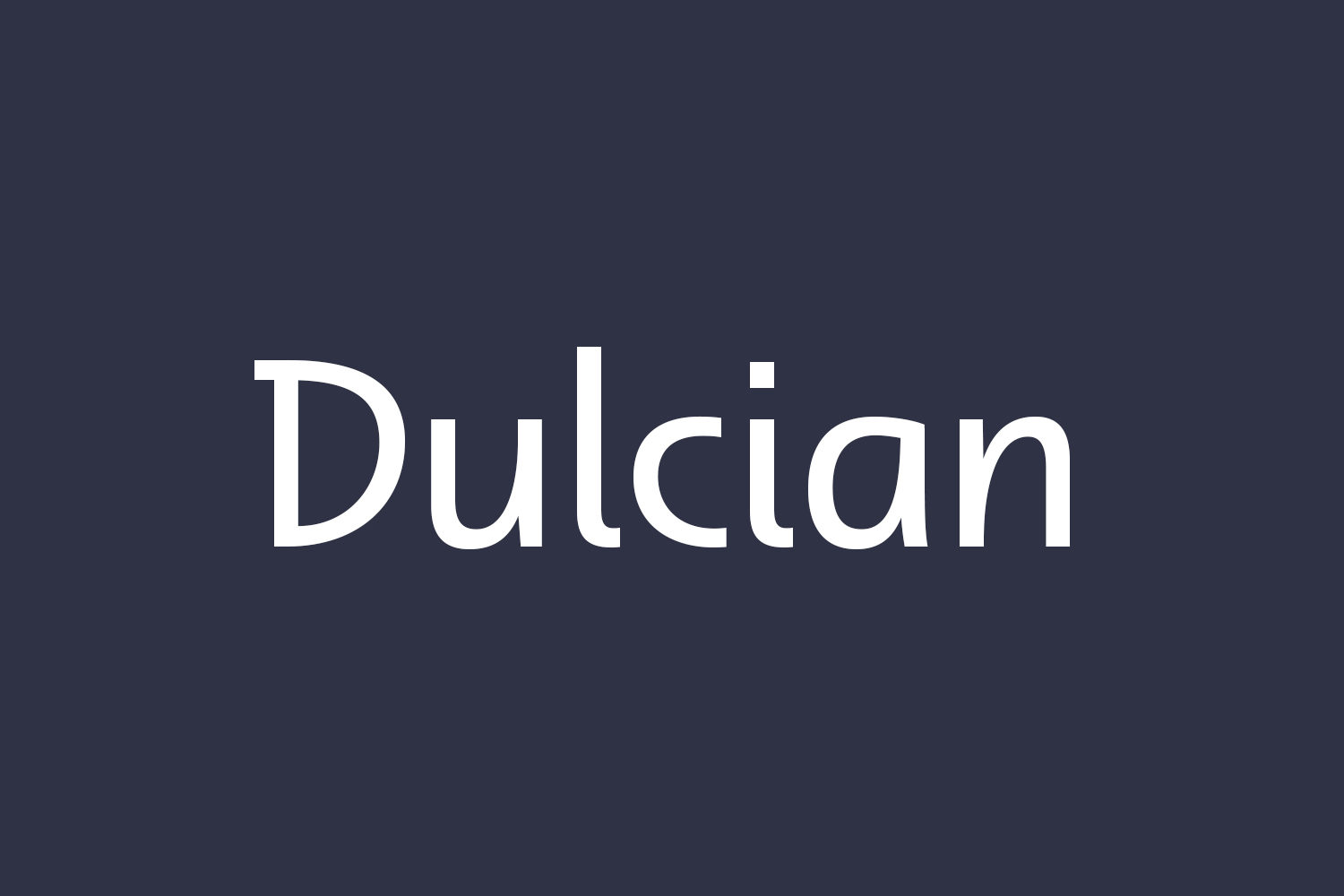
Dulcian
Dulcian Free Font Family supports OpenType features and is packaged with unicase alternates, unconnected alternates, ligatures, old-fashioned figures, fractions, titling and small caps. Preview any and all of these features in the interactive PDF manual. The Dulcian family of fonts also includes glyphs for 72 languages, providing you with more than 600 glyphs per font.
While designed especially for pull quotes, this display typeface can be used for a variety of applications. Dulcian is an excellent choice for websites as well as flyers and packaging. Other uses include coffee, menus, awards, certificates where a touch of humanity and personalization is needed.